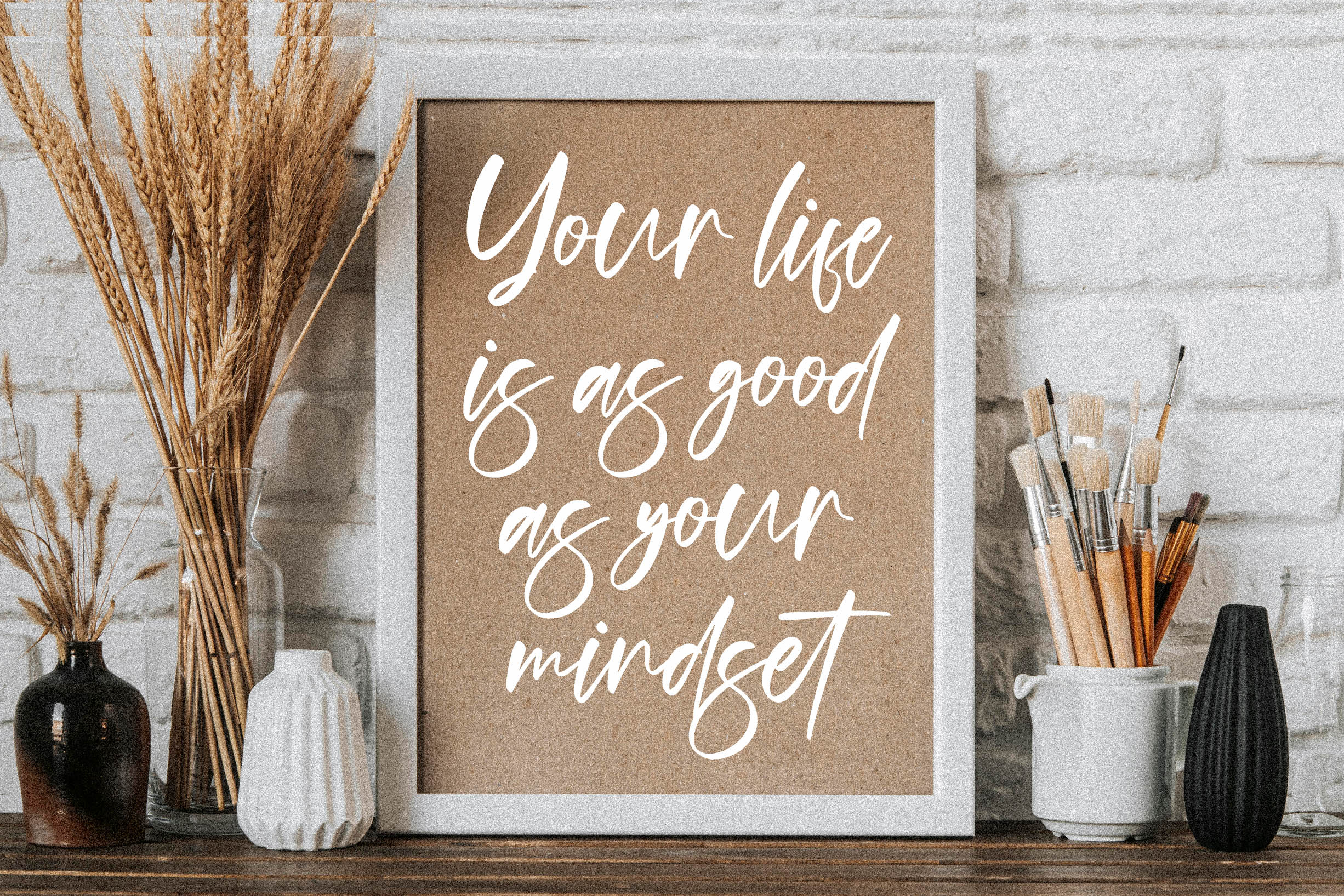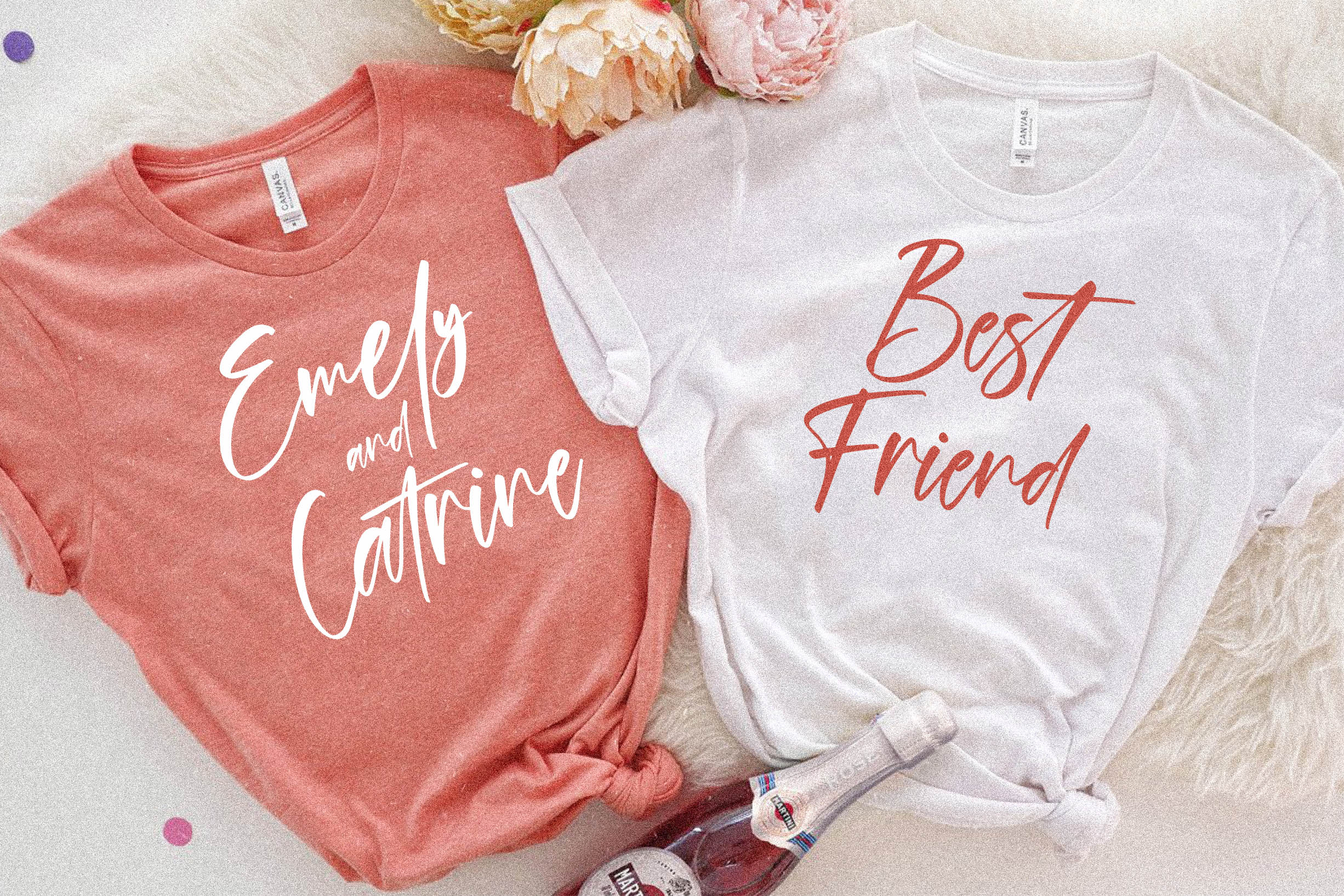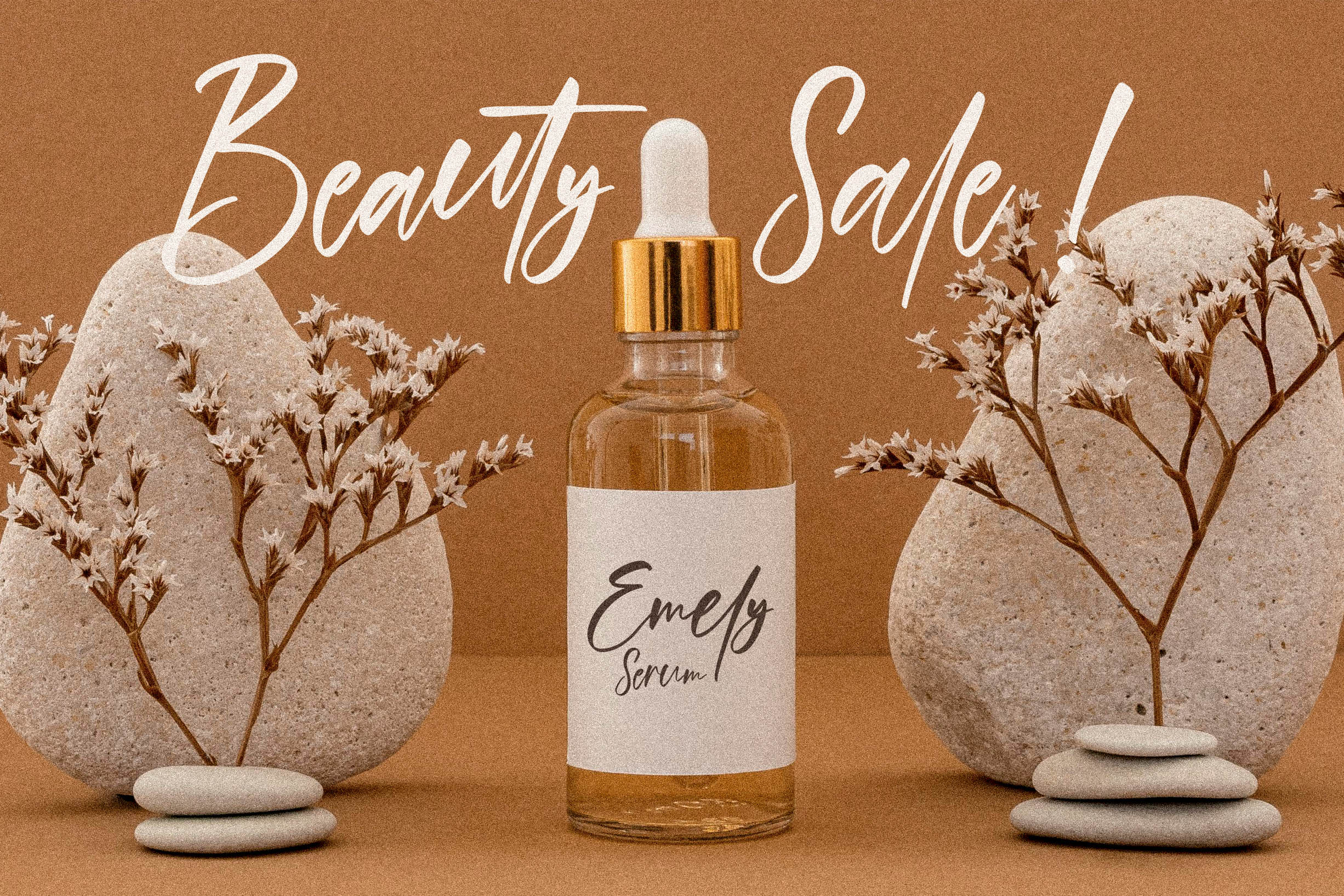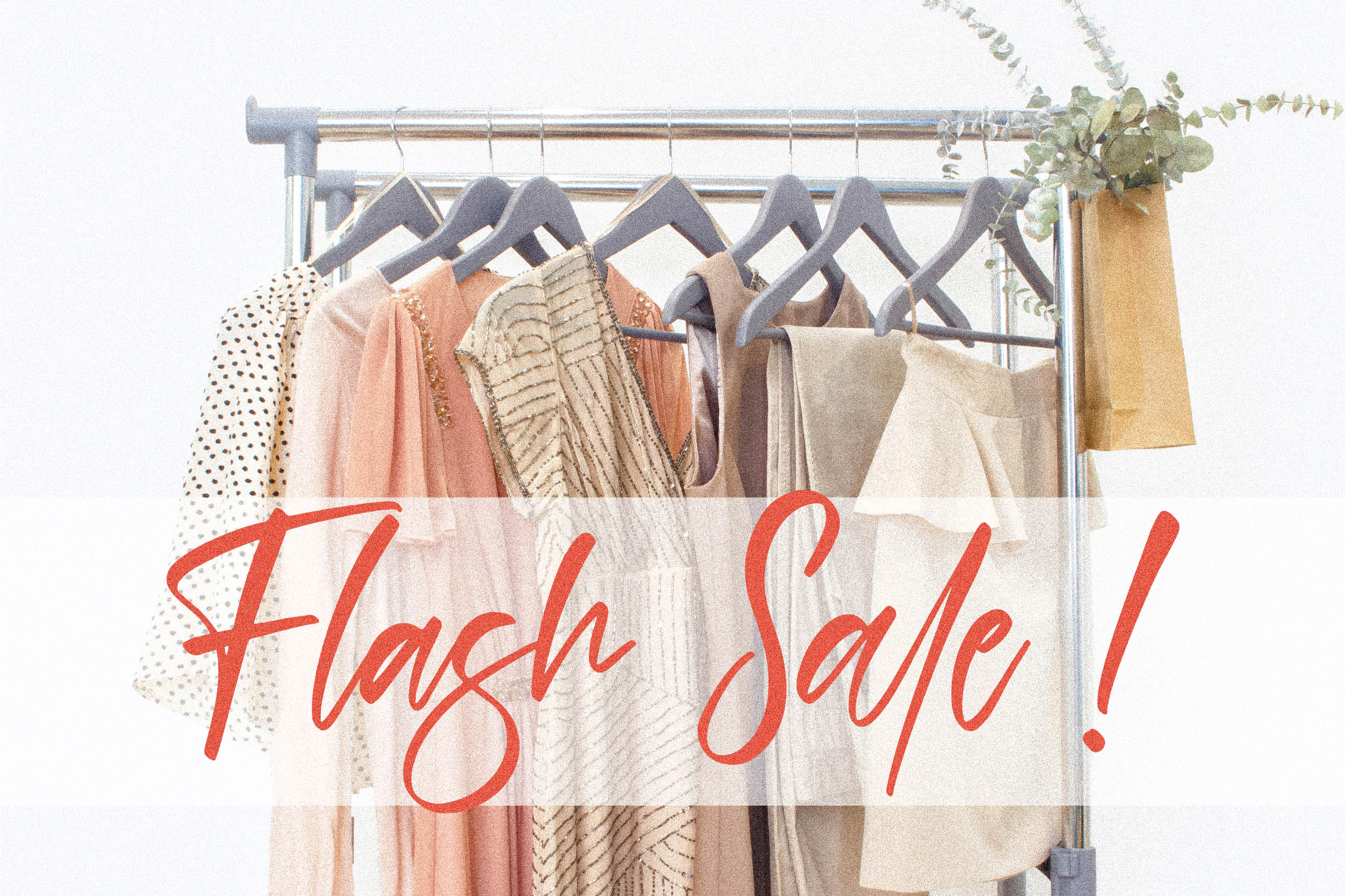
Cantika Prilia Font
Cantika Prilia Script Font
This is a handwritten font, suitable for any projects such as: logos, branding projects, homeware designs, product packaging, mugs, quotes, posters, shopping bags, t-shirts, book covers, name card, invitation cards, greeting cards, label, photography, watermark, special events, and all your other luxury projects that need a handwritten taste.